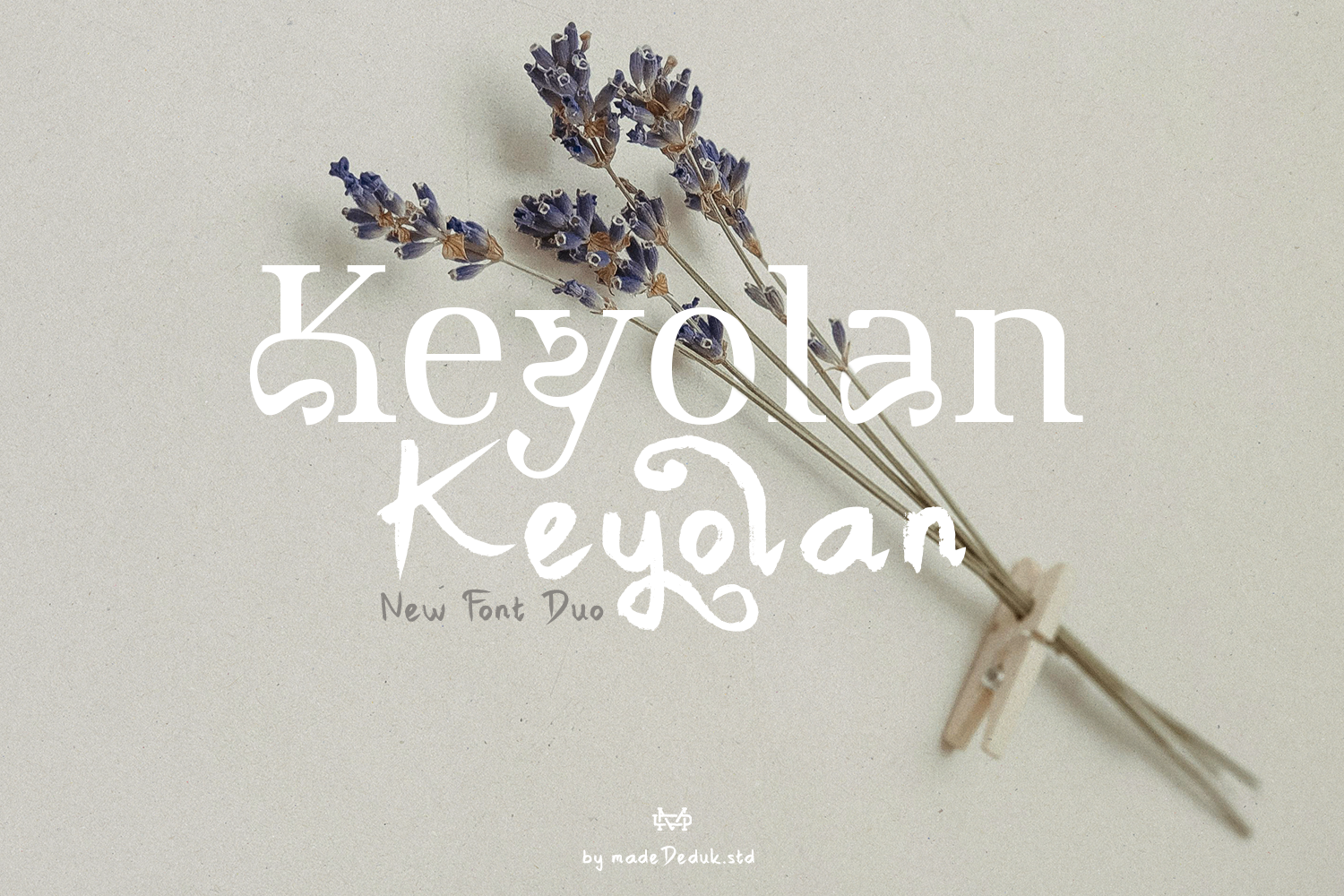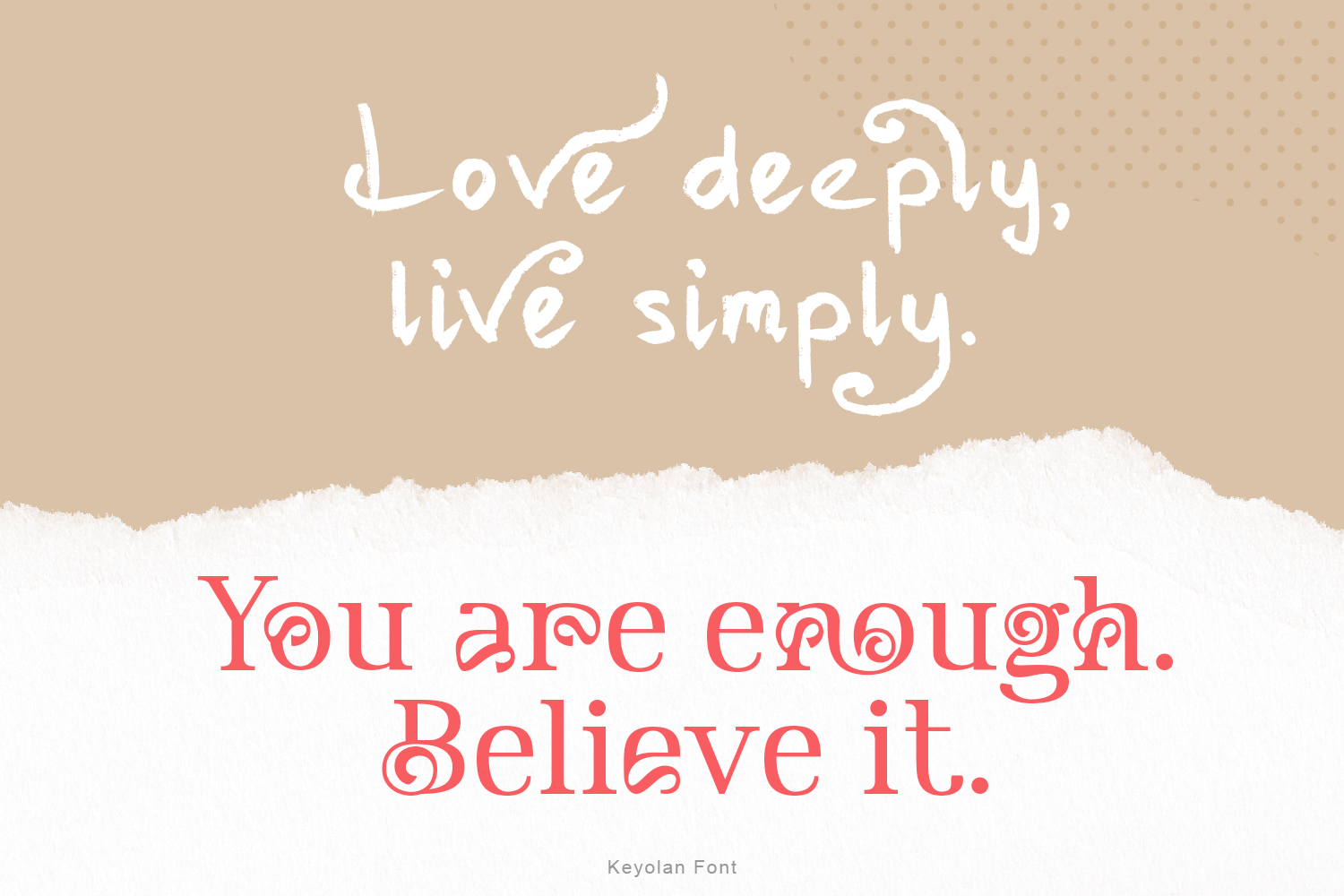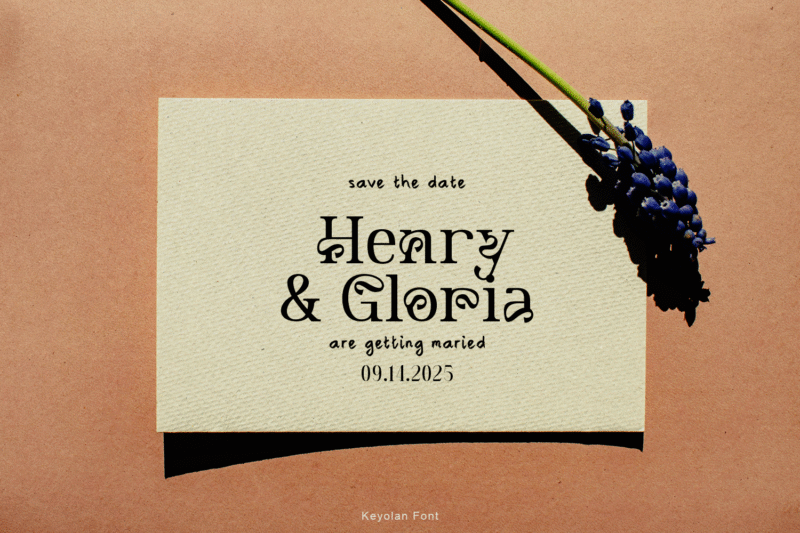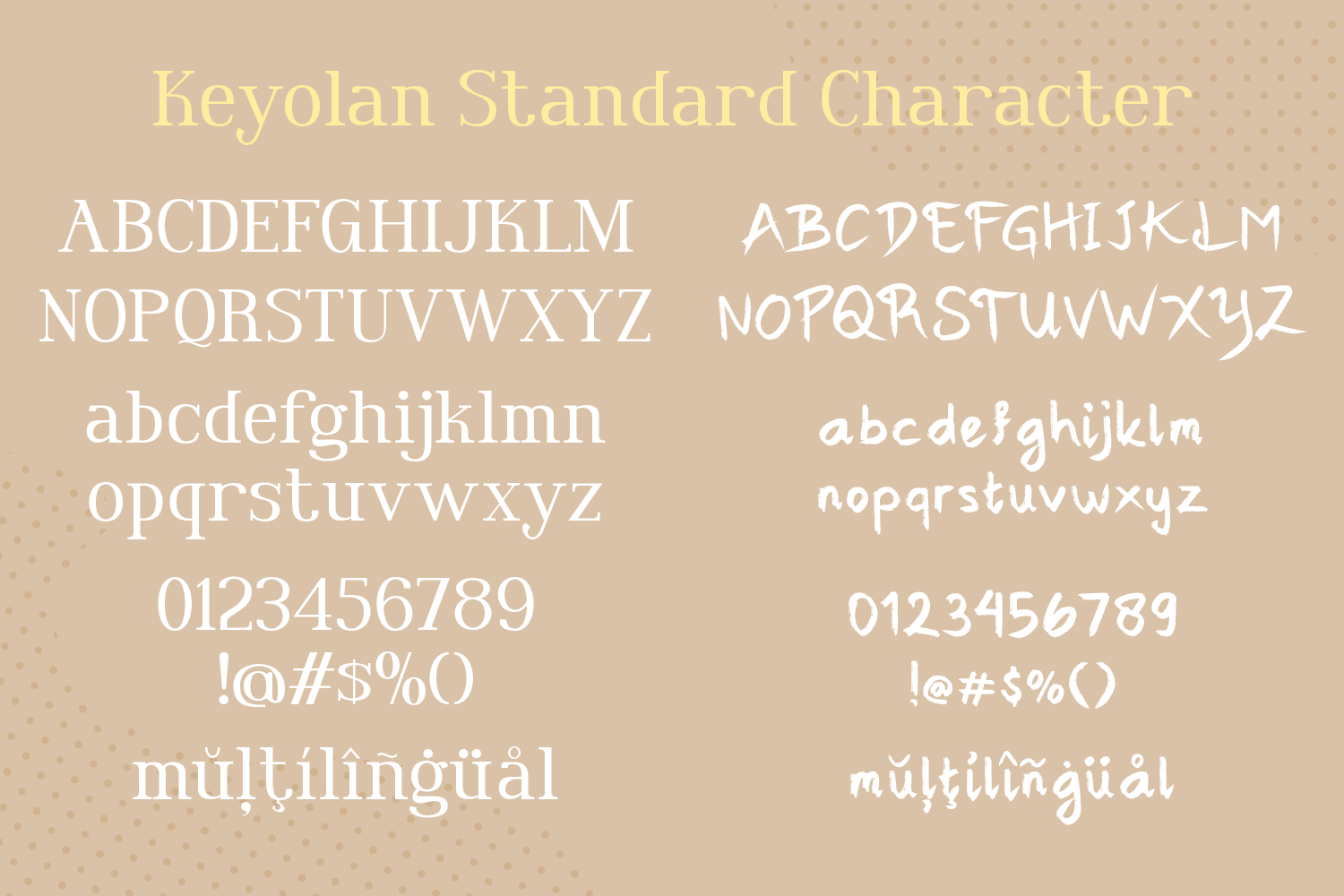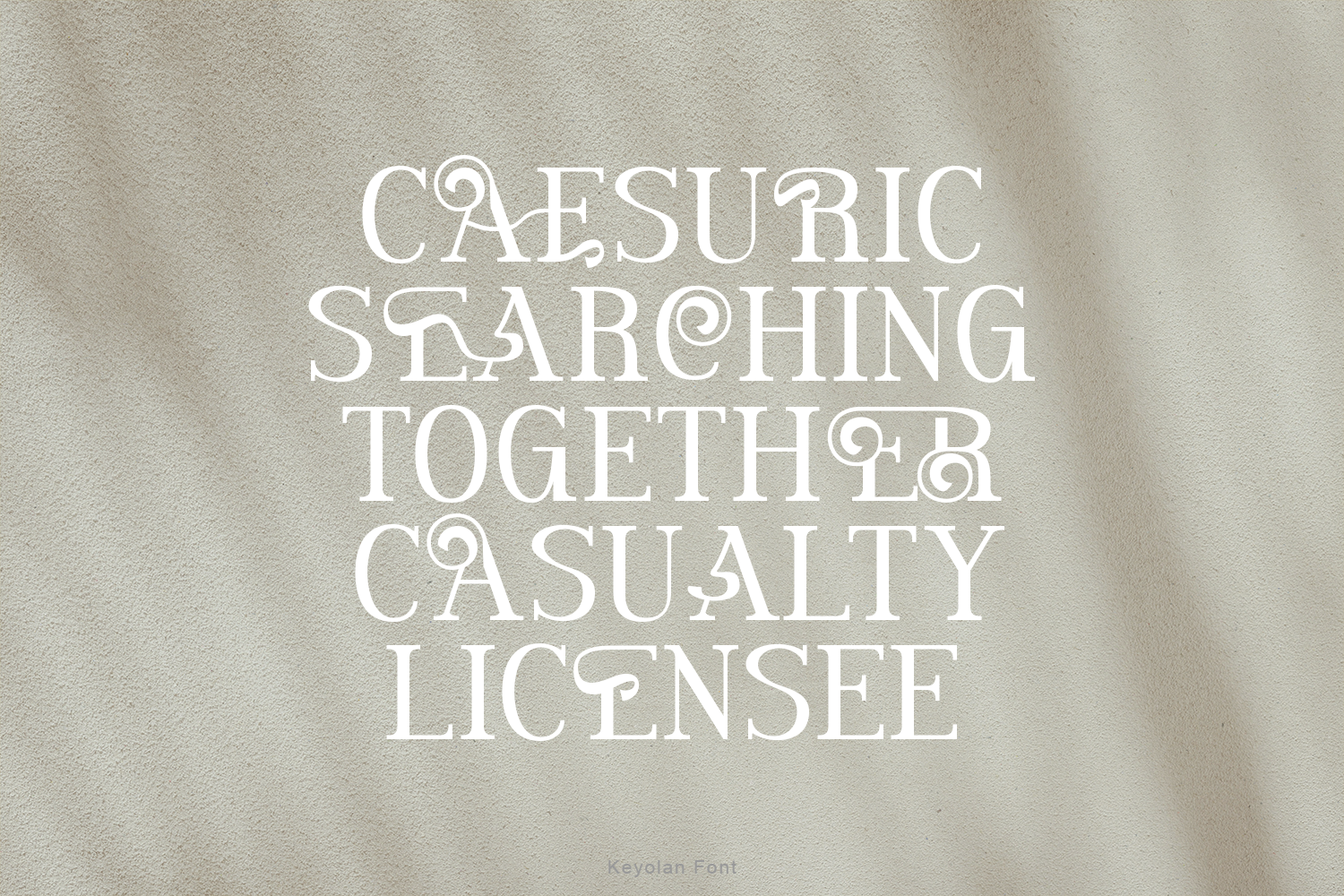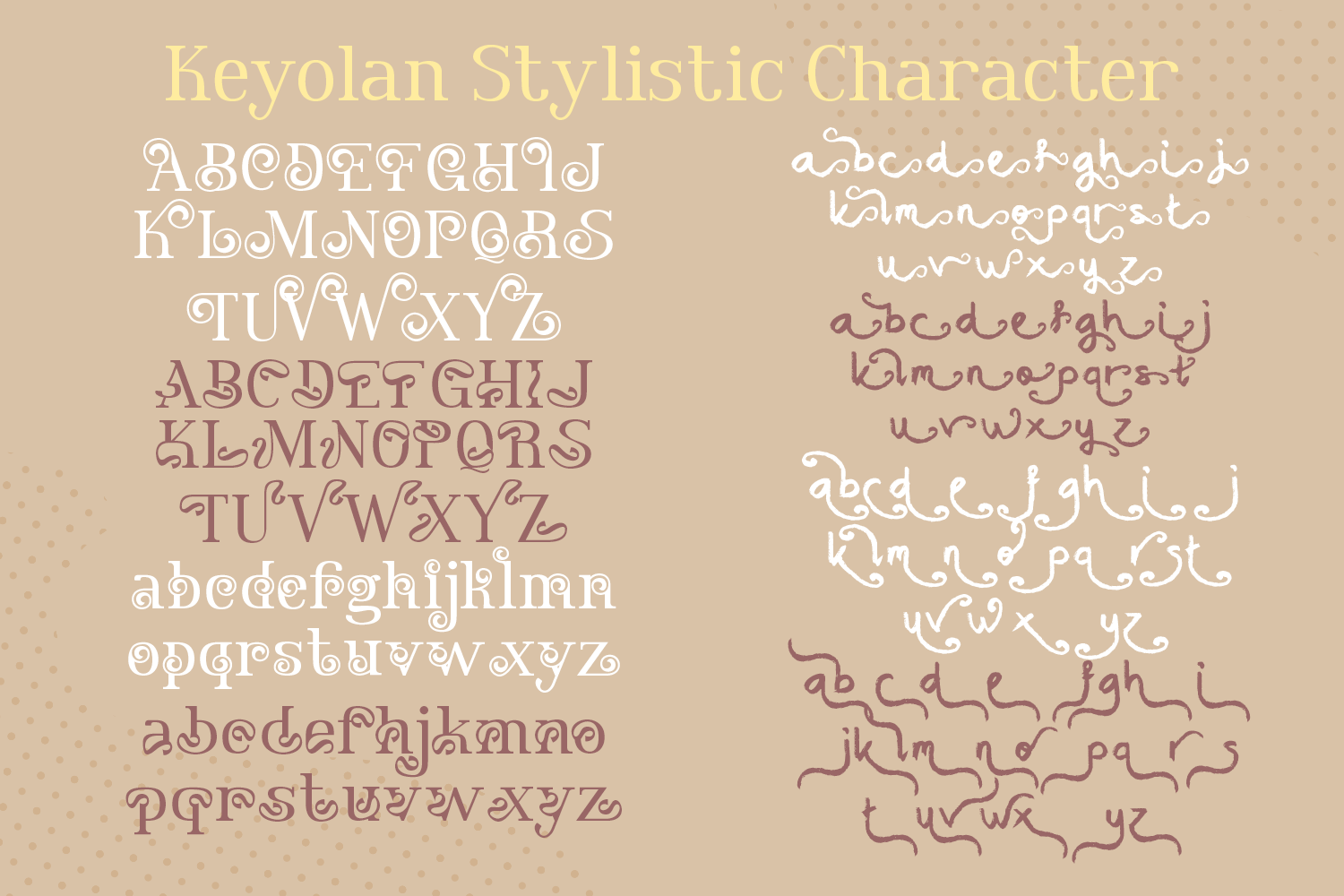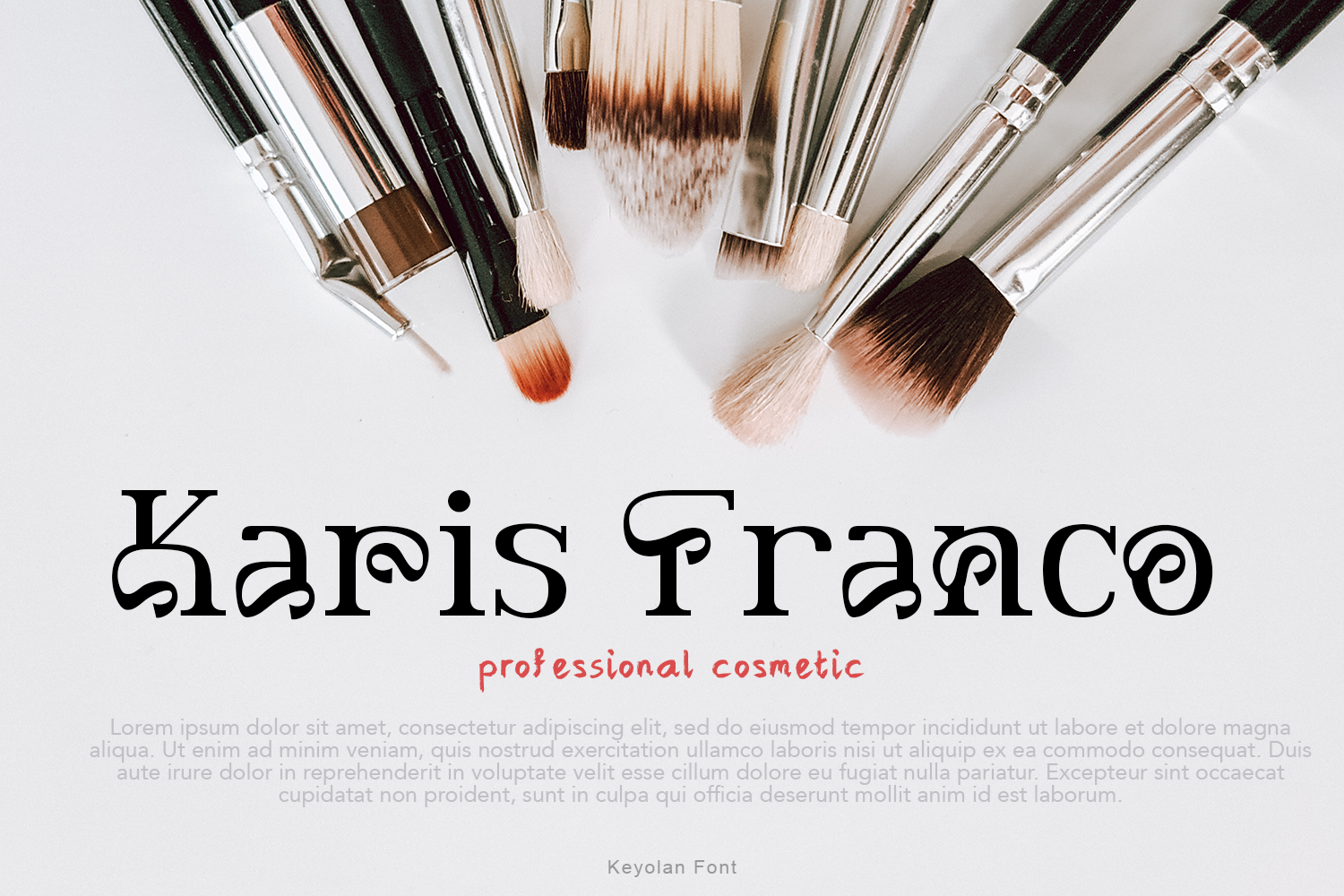
Keyolan Fontduo
Keyolan is a fontduo serif font combined with brush handwriting. This font has a modern minimalist and simple look. However, this font brings a luxurious and attractive style to modern logos, websites, social media quotes, wedding stationery, and more.
• Uppercase & Lowercase
• Number & Symbol
• International Glyphs
• Multilingual Support
• Ligature
• Alternative